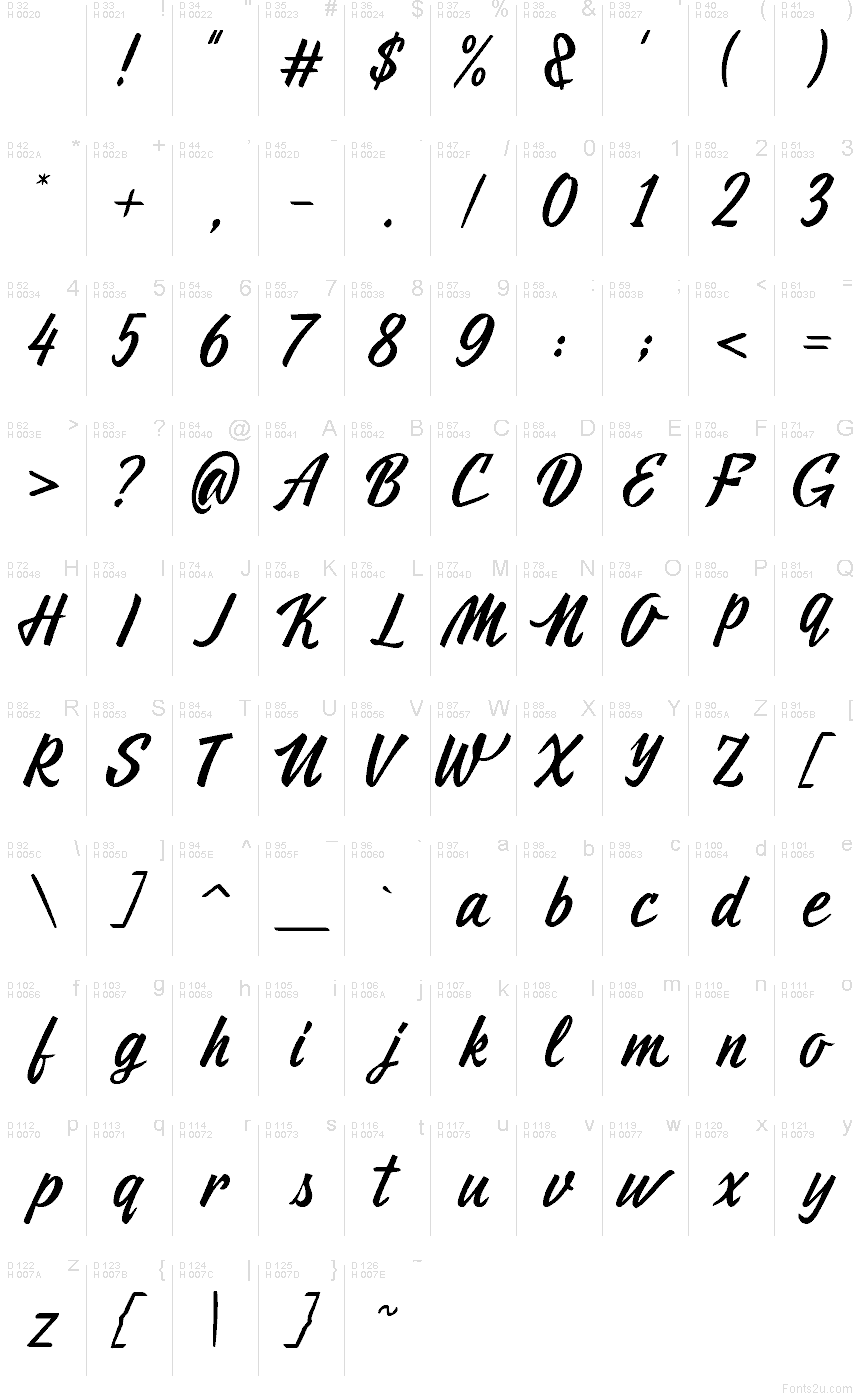
Antique Valley
Antique Valley font by BlackFridayFont FMF is a free brush script typeface that gives you that hand-painted energy without sacrificing readability. Its smooth, slightly slanted strokes feel like wet ink pulled across paper—confident, connected, and still wonderfully clear at a glance. The rhythm between letters is tight but not cramped, so words flow in one continuous gesture while staying easy to read on screens and in print.
Using Antique Valley, you can add a lively, human touch to logos, product packaging, posters, social media graphics, invitations, and café or boutique signage. This free font shines when used large for headlines or name treatments, letting the sweeping forms and inky texture really breathe. For supporting text, pair Antique Valley with a clean, neutral sans serif to balance its expressive, handwritten character.